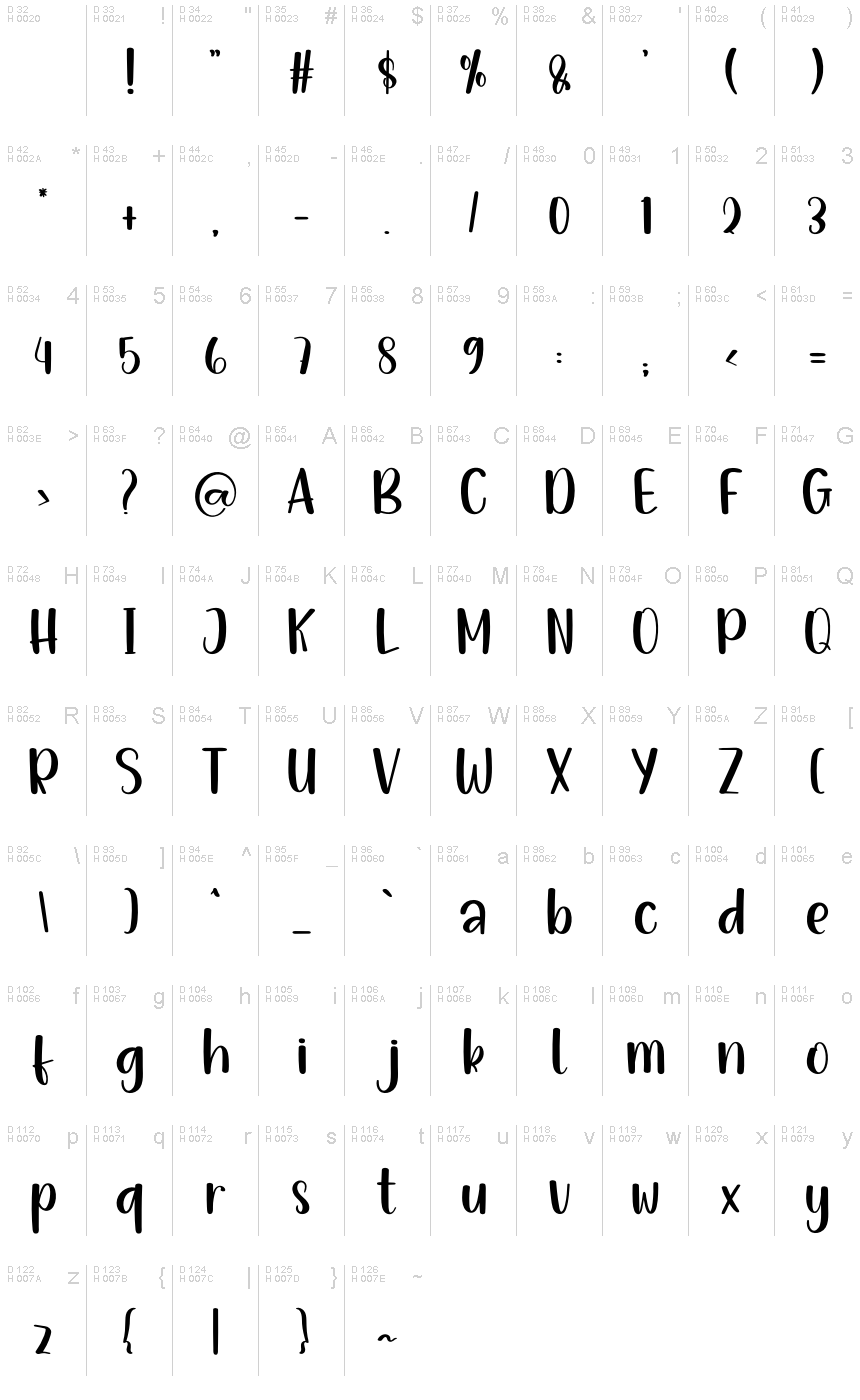
Mandala Saturday
Mandala Saturday, a captivating handwritten font crafted by PiPi Creative, exudes a delightful blend of elegance and whimsy. Featuring organic, flowing strokes and a playful, hand-drawn aesthetic, this font emanates a sense of warmth and individuality. Its distinctive character invokes feelings of creativity, joy, and a touch of the unexpected, making it a standout choice for a variety of design projects.
The versatility of Mandala Saturday shines through, making it a versatile option for branding, packaging, invitations, social media content, and more. Its charming and approachable qualities lend themselves beautifully to designs that aim to convey a personal, handcrafted touch, whether in the realm of small businesses, lifestyle brands, or creative endeavors.